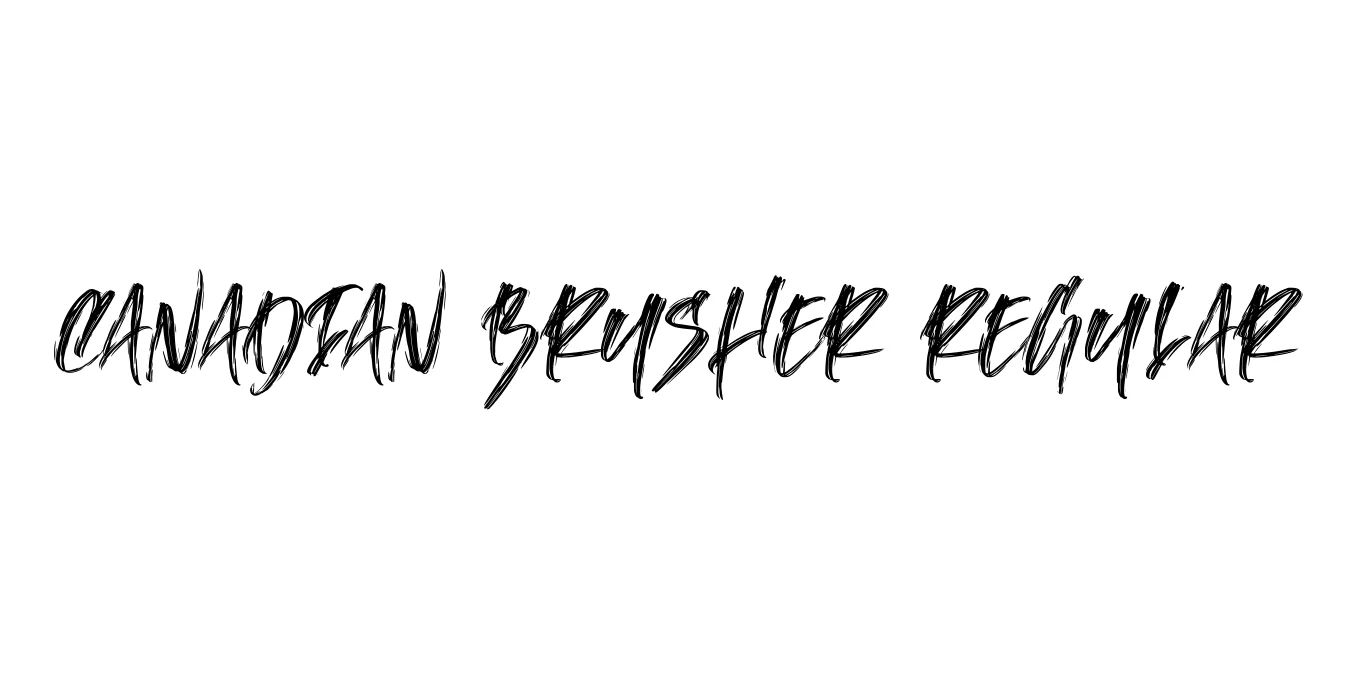
Canadian Brusher Regular
Canadian Brusher Regular is a high-energy, hand-painted brush font designed to convey movement and raw texture. Created by the renowned typographer Mans Greback, this typeface features bold strokes and natural imperfections that mimic the look of a brush dripping with ink. It is particularly effective for projects that require a sense of urgency, power, or organic craftsmanship.
This font is widely utilized in the sports industry, outdoor apparel branding, and urban street style designs. Its assertive characters and slanted posture give it a dynamic edge, making it a favorite for headlines, logos, and promotional posters. Whether you are designing for a digital platform or print media, Canadian Brusher offers a distinct personality that stands out from cleaner, more traditional sans-serif alternatives.
Canadian Brusher Regular Best Uses
Perfect for high-impact logos for athletic teams and competitive events.
Ideal for creating rugged, urban-style t-shirt designs and streetwear branding.
Great for making bold statements in posters, flyers, and social media graphics.